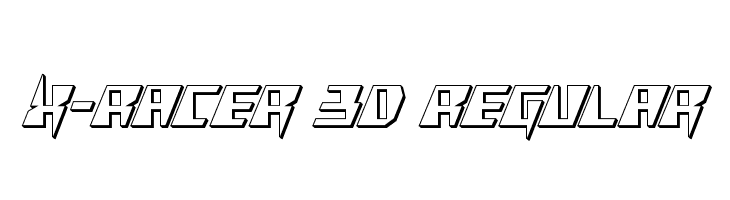
A bold, angular font with a shadow drop effect for a three-dimensional look.
A futuristic, geometric font with bold, angular shapes and a three-dimensional outline.
A bold, angular font with a futuristic, three-dimensional appearance.
A bold, geometric font with a three-dimensional outline.
A bold, futuristic font with geometric outlines and a three-dimensional look.
Bold, italicized font with a three-dimensional outline and geometric design.
A bold, geometric font with a three-dimensional outline effect, perfect for modern designs.
A bold, geometric font with a futuristic, three-dimensional style.
A bold, three-dimensional font with a dynamic and powerful style.
A bold, geometric font with a military-inspired, three-dimensional design.